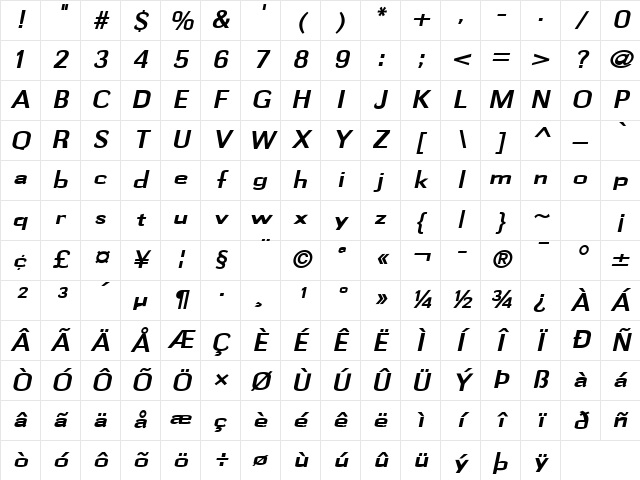
Gauss Bold Italic Free Font
Gauss Bold Italic
Design Context for Gauss
Gauss is a composed and adaptable typeface that performs quietly and consistently across a wide range of design contexts. The slanted form adds forward momentum and visual energy. Its bold stroke weight gives it real presence on the page.
Pro Tip: Use Gauss for emphasis, pull quotes, and subheadings where its slanted energy can add rhythm to the layout.